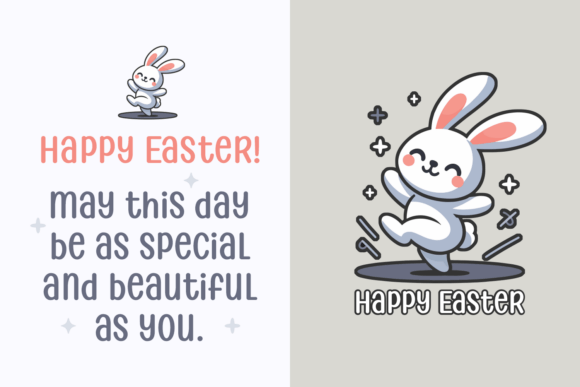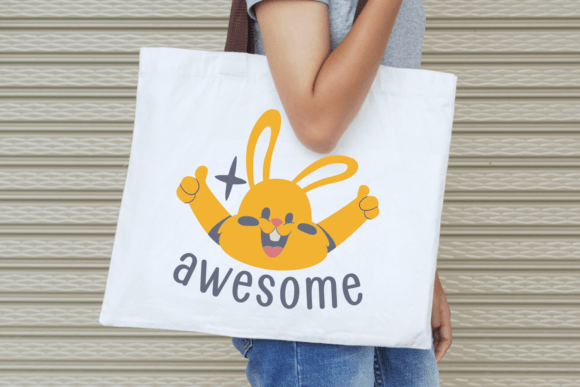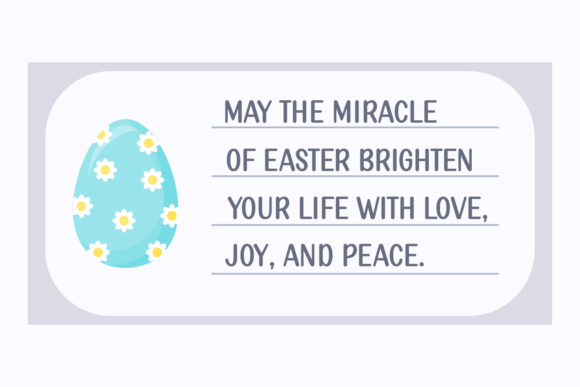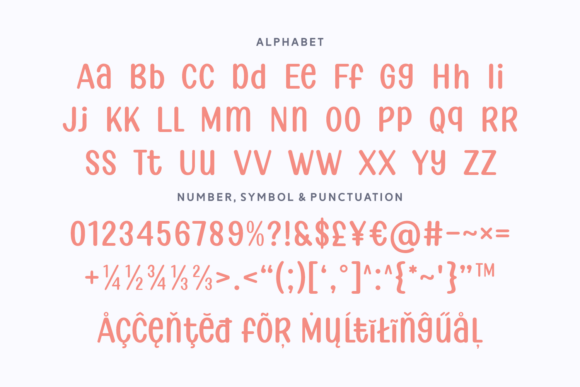
Introduction to Great Bunny Font
Have you ever stumbled upon a design element that instantly sparks a creative idea? Maybe it was a quirky illustration or an intriguing typography choice. For me, it was the moment I discovered the Great Bunny Font – a delightful display font that screams joy and playfulness. Its unique blend of thick, vertically elongated letterforms and soft, rounded terminals creates a sense of visual weight that’s both approachable and professional.
As designers, we’re always on the lookout for high-quality design resources that can elevate our creative projects. The Great Bunny Font is a standout asset for family-oriented branding, children’s product marketing, and artisanal gift packaging. Its consistent monolinear weight and organized vertical rhythm make it perfect for creating cheerful digital headers that demand attention.
With its free download option and transparent background, this design resource is a treasure trove for creatives. Whether you’re working on a children’s book, a family-friendly website, or a product packaging design, the Great Bunny Font is sure to bring a smile to your audience’s faces. So, let’s dive into the world of this lovable font and explore its many possibilities.
- Unique, whimsical design that adds a playful touch to any creative project, perfect for Easter-themed designs or bunny-inspired artwork.
- OpenType font with advanced features, including ligatures and swashes, for added creativity and flexibility.
Honest Review: Great Bunny Font
As a designer, I’m always on the lookout for high-quality design resources that can elevate my creative projects. Recently, I stumbled upon the Great Bunny Font, and I’m excited to share my honest review.
What works well: ✨ The Great Bunny Font is perfect for adding a playful touch to my designs. The font is highly customizable, and I appreciate the transparent background feature, which allows me to easily blend it with my background images.
Some of the key features I love about this font include:
- Extensive character set, ensuring I have all the letters and symbols I need
However, there are a few limitations: ⚠️ The font is not ideal for formal or professional projects, as it may come across as too playful. Additionally, the font may not be compatible with all operating systems or software.
Overall, I’m impressed with the Great Bunny Font. It’s a great addition to my design library, and I’m excited to use it in future projects. If you’re looking for a fun and playful font, this is definitely worth checking out!
To get the most out of Great Bunny Font, experiment with different font sizes and colors to create a unique visual effect. This font is perfect for adding a playful touch to your designs.